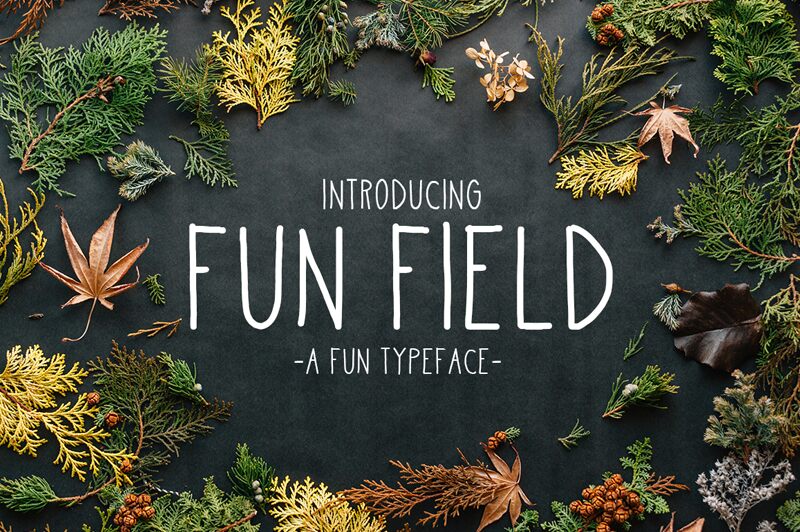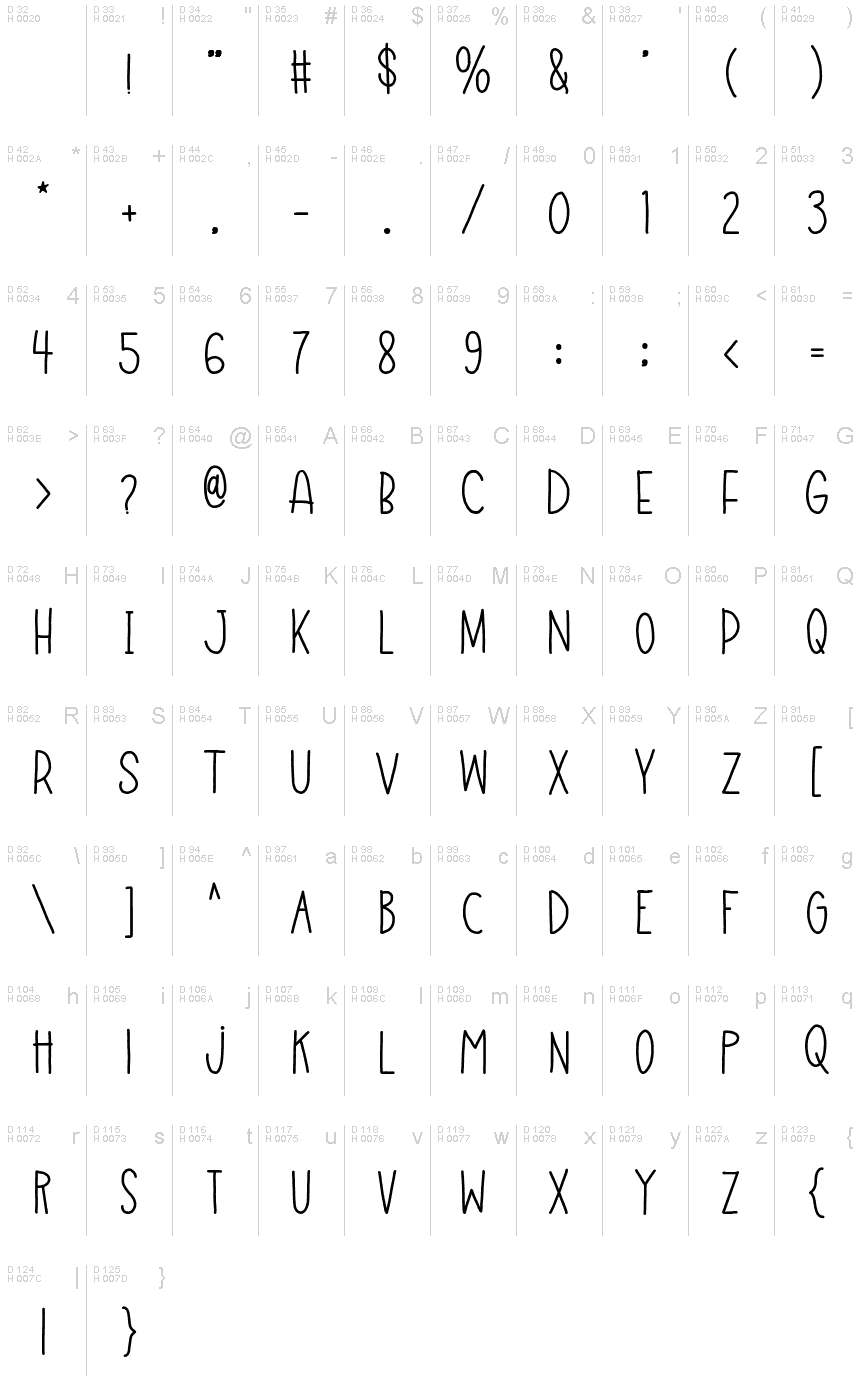
Fun Field Regular
Introducing FunField | a Fun Font. It comes with a Font Regular which is perfect to make any design.
This font is perfect for branding, magazines, quotes, Games, invites, business cards, posters, and more.
FunField Type Features:
Uppercase
Lowercase
Numerals & Punctuations
Suitable for T-Shirt Logotypes, Signs, Headlines, Posters, Letterhead and many more.